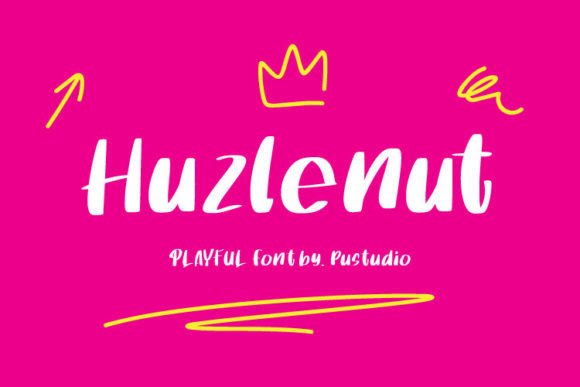
Huzlenut Font
Introducing Huzlenut font, the captivating handwritten masterpiece that will ignite your creative spark! Imagine your designs blooming with its charming script, each letter a delicate brushstroke that echoes the beauty of handwritten artistry.
Huzlenut is not just a font; it's a gateway to a world of limitless possibilities. Its clean and cute style brings a touch of playfulness and warmth to any project, making it the perfect choice for creating eye-catching sign boards that beckon customers from afar.
But Huzlenut's magic extends far beyond signage. Let its adaptable nature guide your imagination as you craft logos that dance with personality, branding that captivates, and invitations that whisper sweet nothings. Its authentic vibe lends a personal touch to every creation, ensuring your designs connect with audiences on an emotional level.
With Huzlenut, the boundaries of creativity blur. Its clean lines and cute curves flow together effortlessly, inspiring you to explore new design horizons. Whether you're a seasoned designer or just starting your artistic journey, Huzlenut empowers you to express your unique style with confidence.